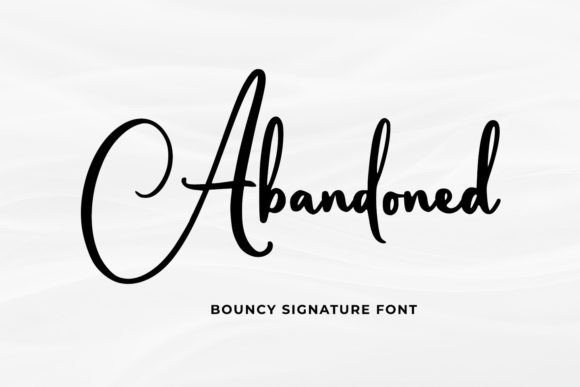
Adorn your designs with Abandoned, a captivating script font that will breathe life into your creative projects. Step into a world of elegance and charm as Abandoned gracefully dances across your screen, leaving a trail of visual delight. With its bouncy signature style, Abandoned is perfect for adding a touch of personality to branding, logotypes, quotes, t-shirt designs, tote bags, cards, banners, social media, and more.
Feel the warmth and authenticity of Abandoned embrace your designs. Its charming curves and playful lines evoke a sense of nostalgia, transporting you to simpler times. Unleash your creativity and let Abandoned guide you as you craft stunning designs that capture hearts and make a lasting impression.
Abandoned is the ultimate choice for those seeking a font that exudes both style and versatility. Its carefully crafted characters seamlessly blend together, creating a visual symphony that dances across the page. Whether you're designing for a business, a personal project, or simply expressing yourself creatively, Abandoned will elevate your work to new heights.
Embrace the allure of Abandoned and let its enchanting script grace your designs. Let your imagination soar as you explore the endless possibilities that await. From playful and whimsical to elegant and sophisticated, Abandoned adapts effortlessly to your creative vision, bringing your ideas to life with remarkable precision.
Don't settle for ordinary fonts; choose Abandoned and embark on a creative journey like no other. Let your designs blossom with charm, authenticity, and a touch of whimsy. Abandoned is more than just a font; it's an experience that will transform your creative endeavors into masterpieces of visual storytelling.